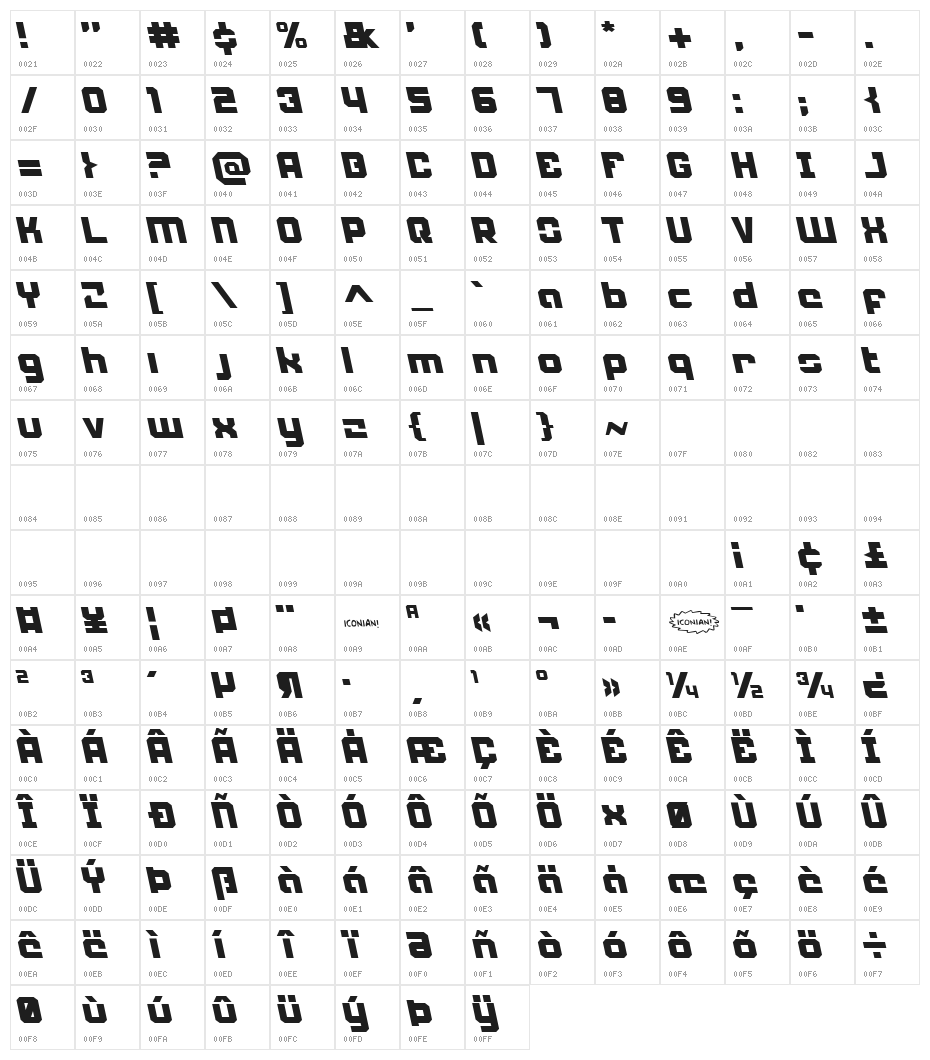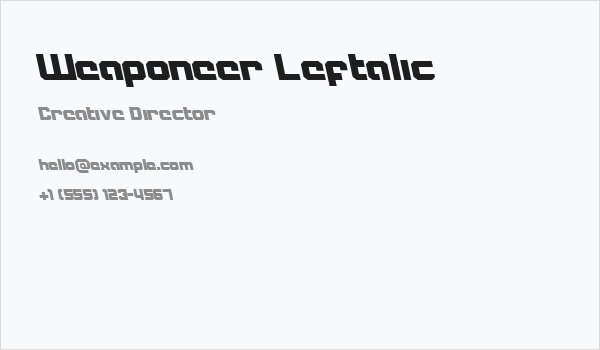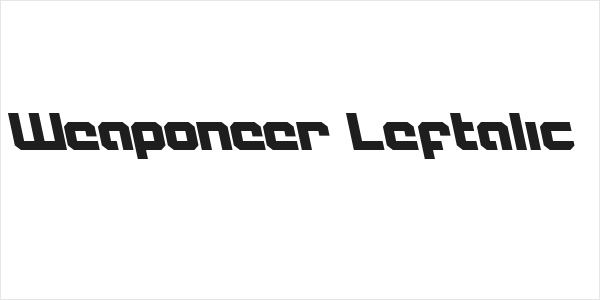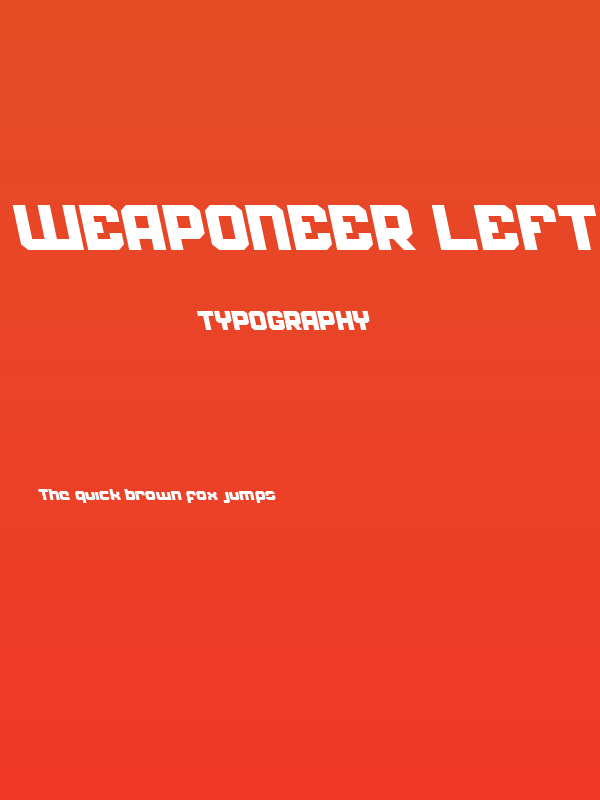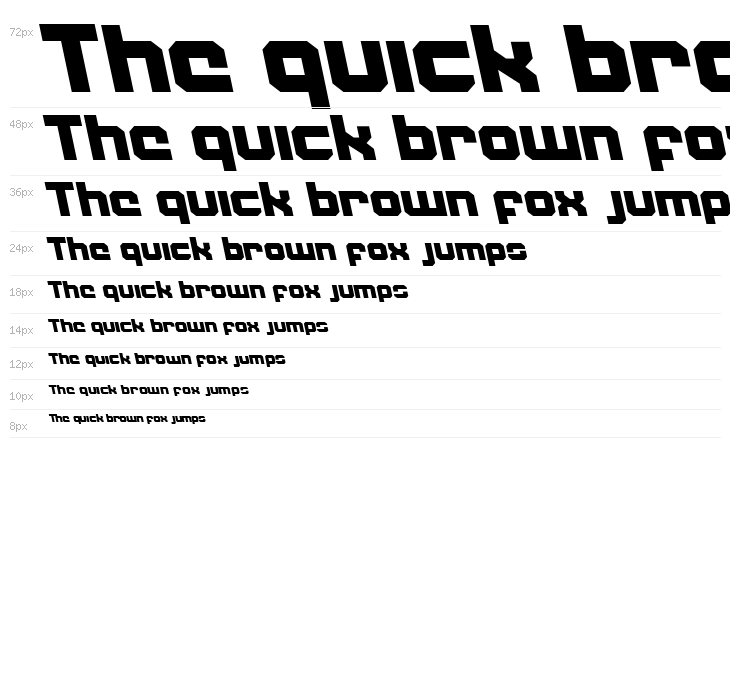
Weaponeer Leftalic Font
Weaponeer Leftalic Description
This font features a bold, angular design with a distinct geometric style. The characters are sharply defined, with a blocky appearance that gives a sense of strength and modernity. The uppercase and lowercase letters maintain a consistent width, contributing to a uniform look. The numbers and special characters follow the same design principles, ensuring cohesion across all elements. The font's unique style makes it suitable for projects that require a futuristic or industrial feel.
| Proposed Projects | Ideal for video game titles, sci-fi movie posters, tech branding, and industrial-themed designs. |